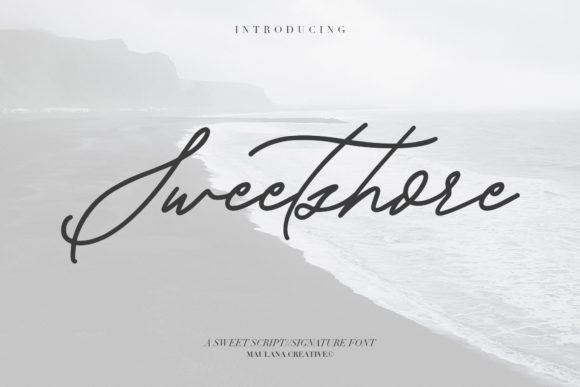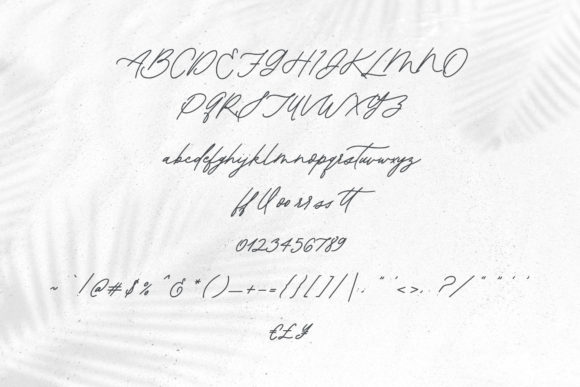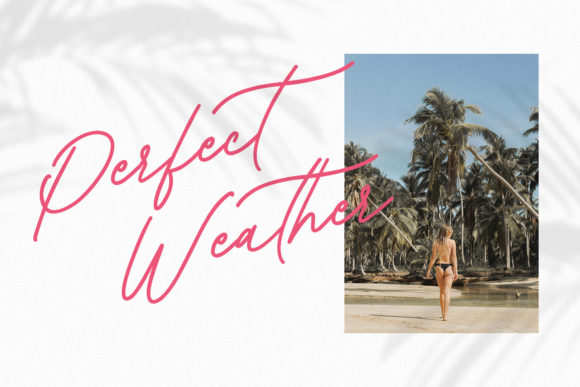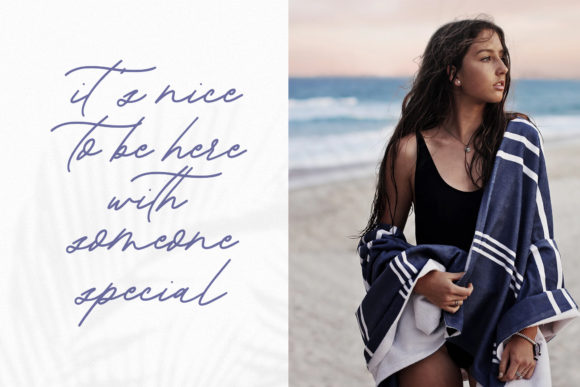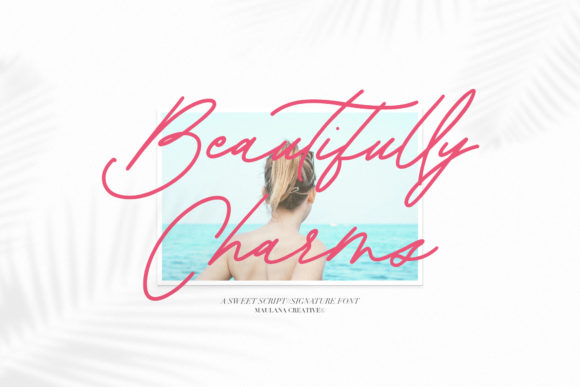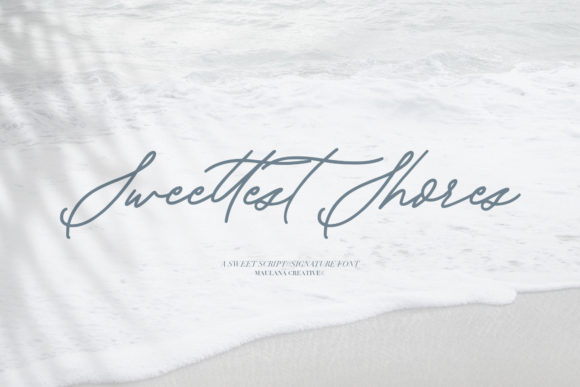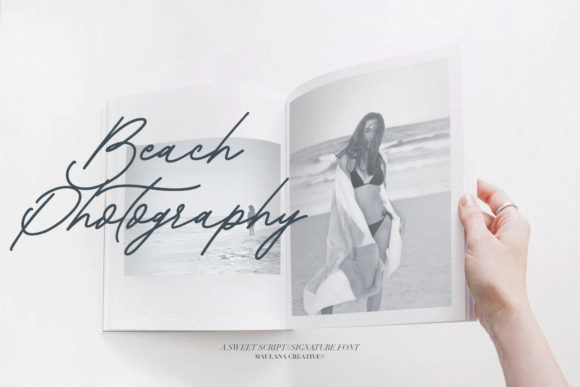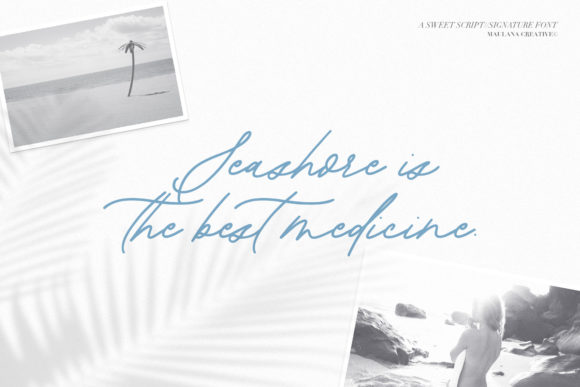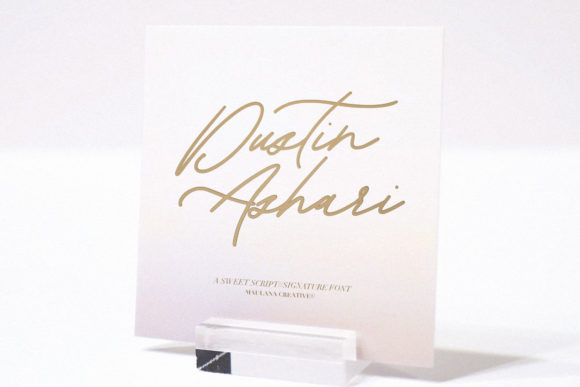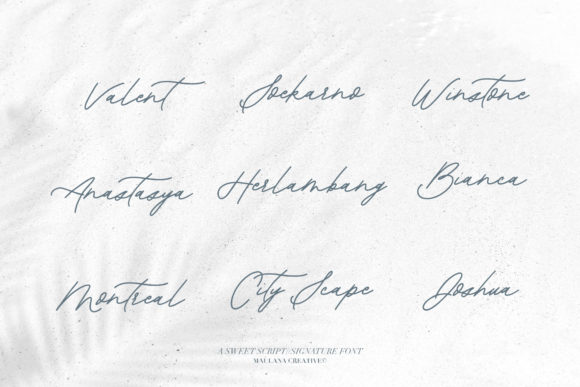
Sweetshore Font
About Sweetshore Font
Sweetshore is a casual script font that gives your design an authentic handcrafted feel. Get inspired by its cool style and flowing curves!